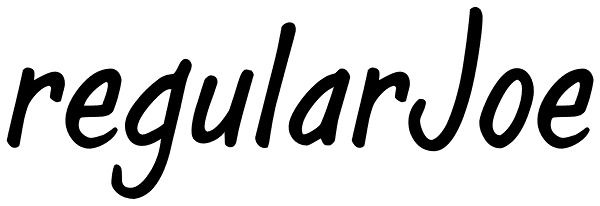
regularJoe
A handwritten but very clean and organized font that's a little bold and a little slanted. Soon to be followed by its evil twin: irregularJoe.
regularJoe Font